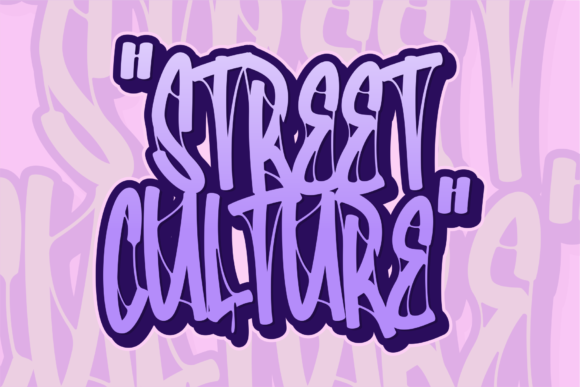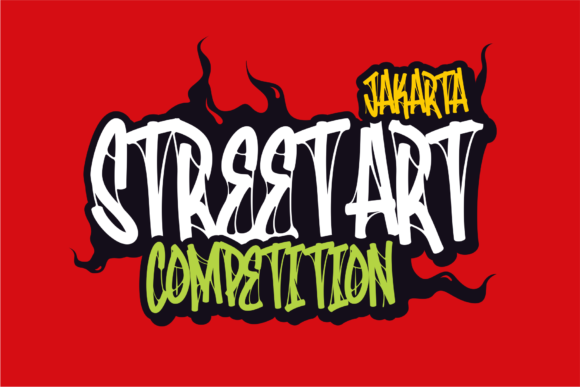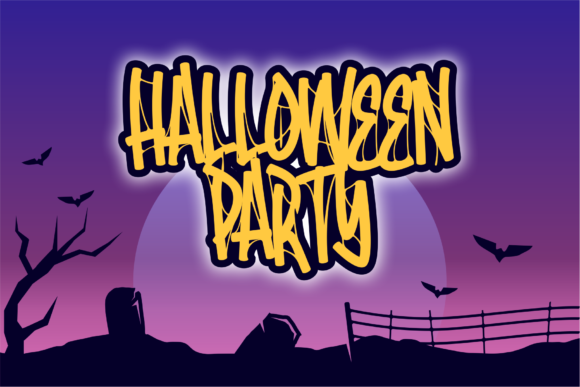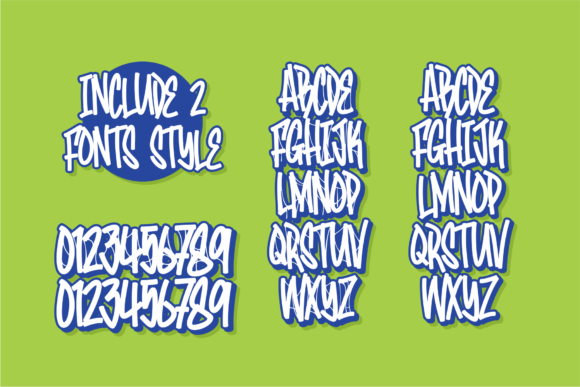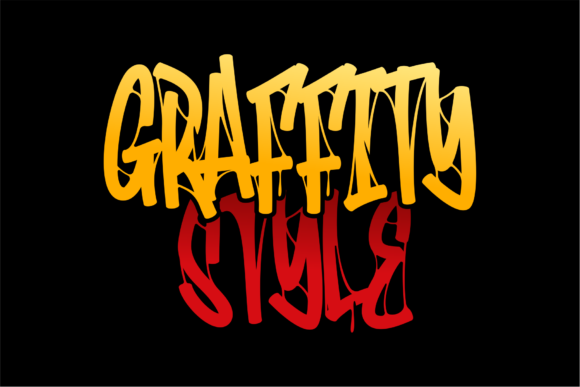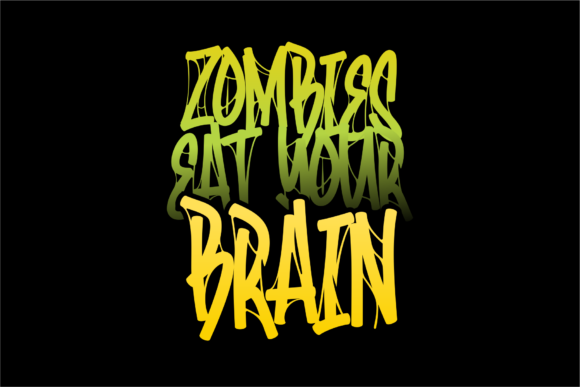
Introduction to Kenarock Font
Do you ever find yourself staring at a blank canvas, searching for that one missing piece to bring your creative vision to life? As designers, we’ve all been there – struggling to convey our message, struggling to stand out from the crowd. But what if I told you that there’s a secret to elevating your designs, a game-changer that’s been hiding in plain sight? Meet the Kenarock Font, a bold and incredibly unique display font that’s about to revolutionize your creative projects.
Key Features of Kenarock Font
- Unique and stylish font with a transparent background, making it perfect for overlaying on images.
- Comes in a single weight with a range of 500 characters, including uppercase and lowercase letters, punctuation, and symbols.
- Designed to be highly legible, even at small font sizes, making it suitable for a variety of design applications.
- Perfect for creative projects requiring a modern and edgy aesthetic, such as graphic design, digital art, and more.
Honest Review: Kenarock Font
As a designer, I’m always on the lookout for high-quality design resources to elevate my creative projects. The Kenarock Font is one such resource that I’ve been experimenting with, and here’s my honest review.
- ✨ Unique aesthetic: The Kenarock Font has a distinctive, bold look that can add a lot of character to your designs.
- ⚠️ Limited customization options: The font is a bit limited in terms of customization options, which may not be ideal for designers who like to fine-tune their fonts.
- ⚠️ Not suitable for all projects: The bold, playful look of the Kenarock Font may not be suitable for all projects, such as formal or professional designs.
Overall, I think the Kenarock Font is a great addition to any designer’s toolkit. While it may have some limitations, its unique aesthetic and free download make it a great option for creative projects. Just be mindful of its limitations and use it accordingly.
Use the Kenarock Font on a transparent background to create a clean and minimalist design. Experiment with different font sizes and styles to add visual interest to your design.
The Kenarock Font is ideal for use in logos, branding materials, and marketing materials. It’s also a great choice for creating high-quality graphics and designs for social media and websites.